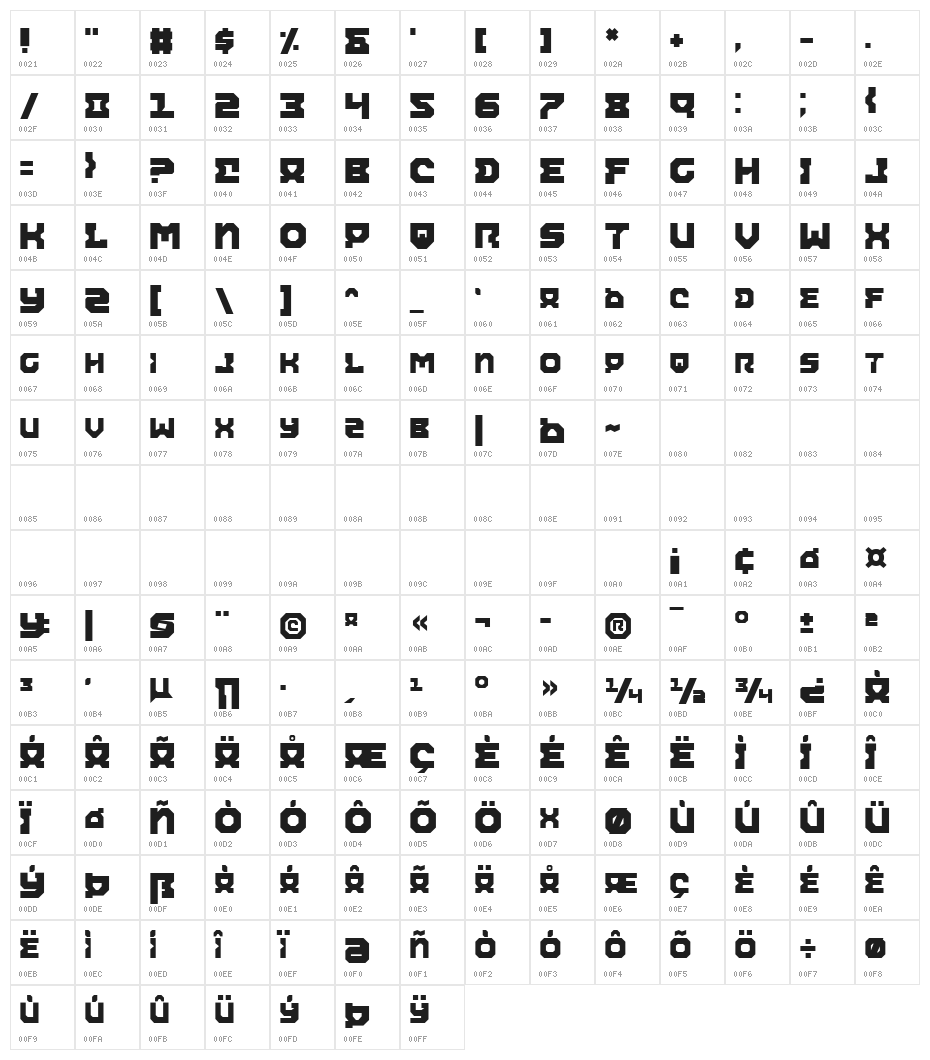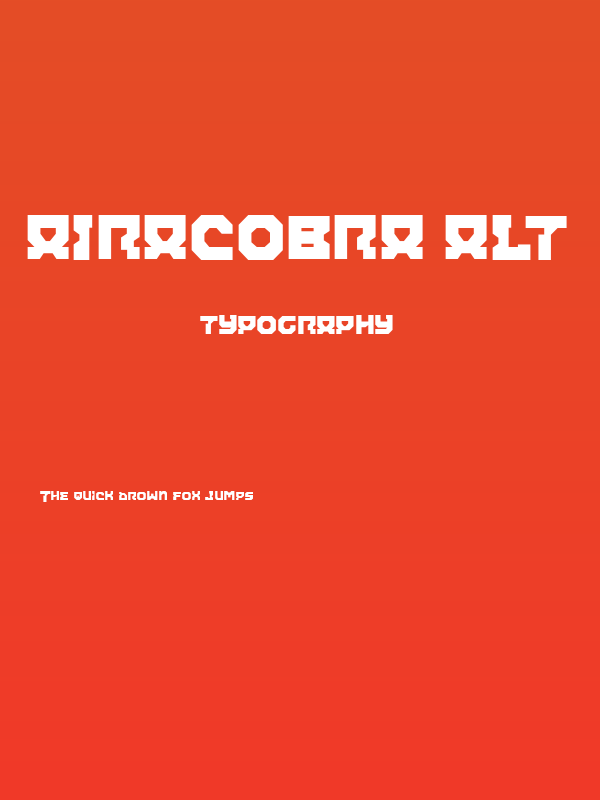
Airacobra Alt Font
Airacobra Alt Description
This font features a bold, geometric design with a strong, angular appearance. The characters are constructed with sharp edges and a blocky style, giving it a futuristic and industrial feel. The uppercase and lowercase letters maintain a consistent height, contributing to a uniform look. The numbers and special characters follow the same design principles, ensuring cohesion across all glyphs. The font's distinct style makes it stand out, ideal for projects that require a modern and edgy aesthetic.
Proposed ProjectsIdeal for video game titles, tech branding, posters, and any project needing a modern, industrial look.